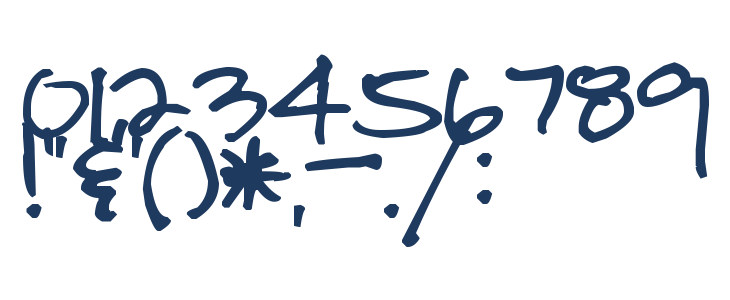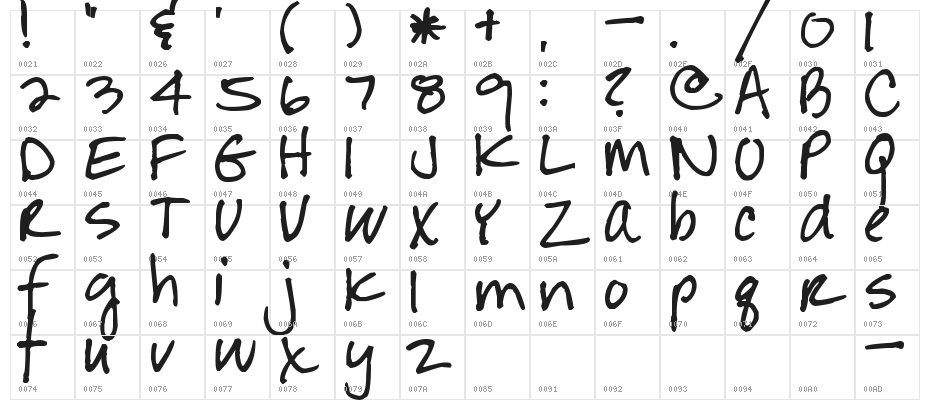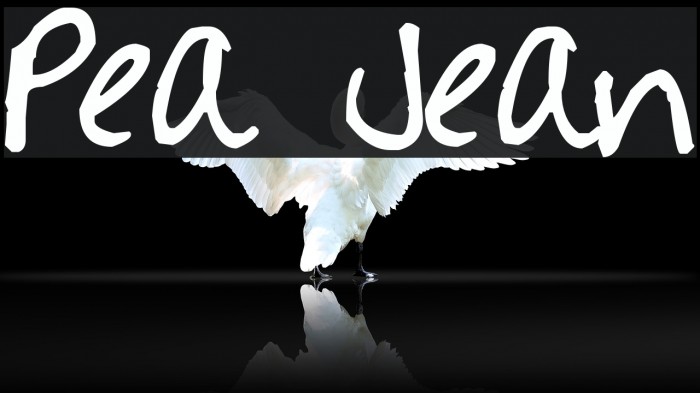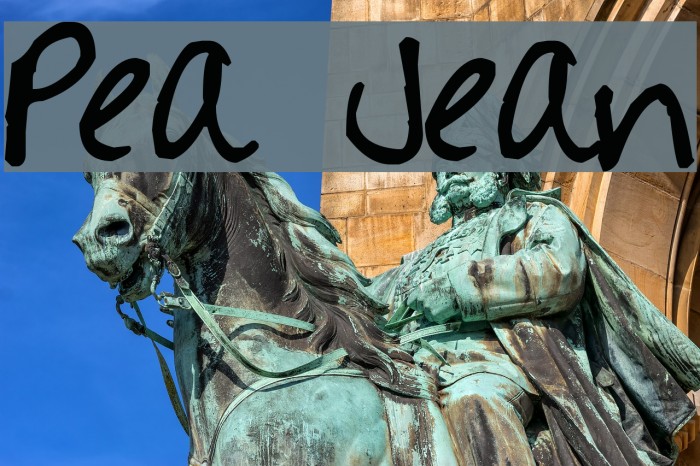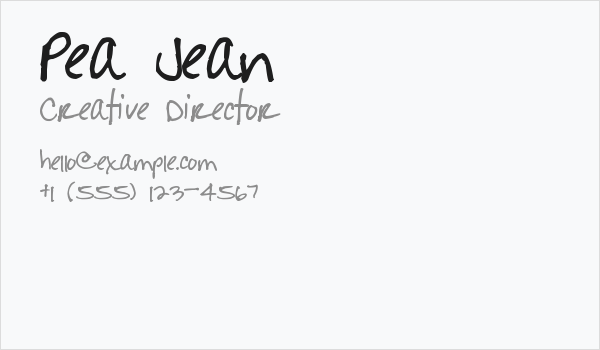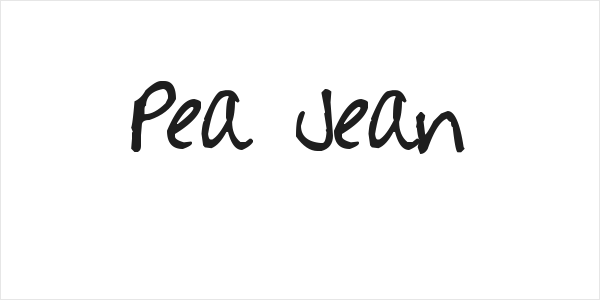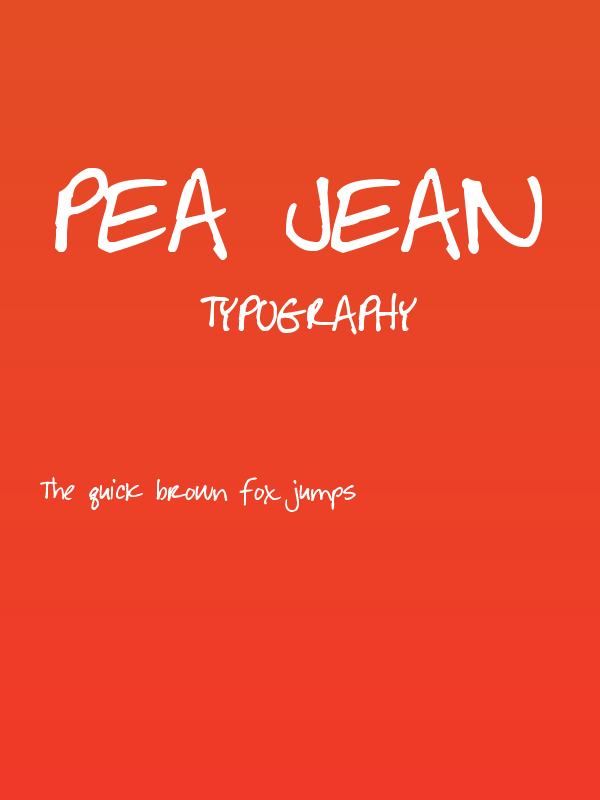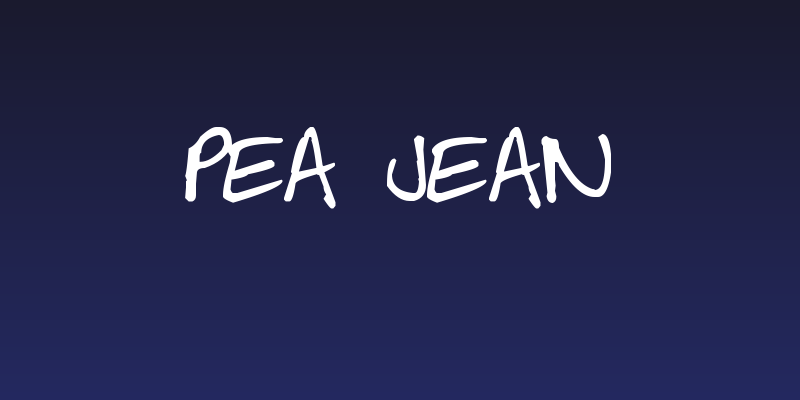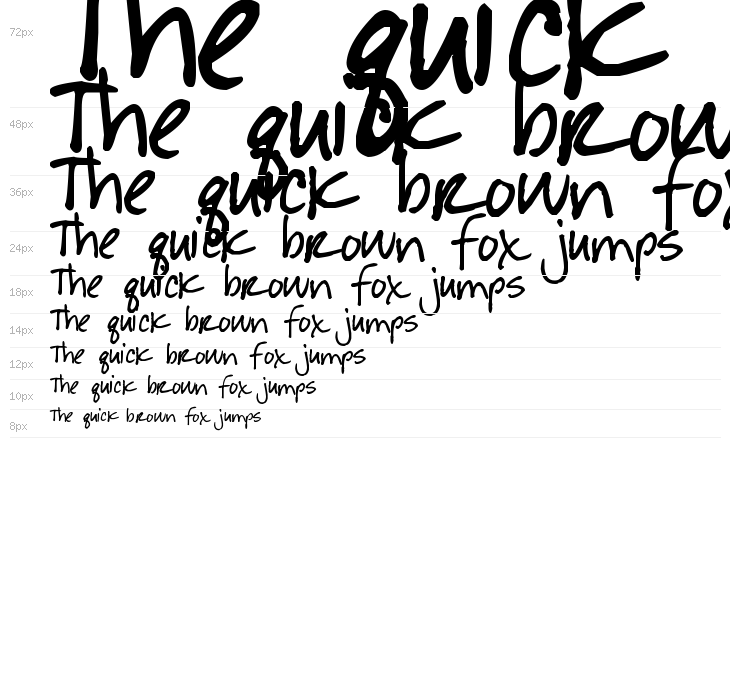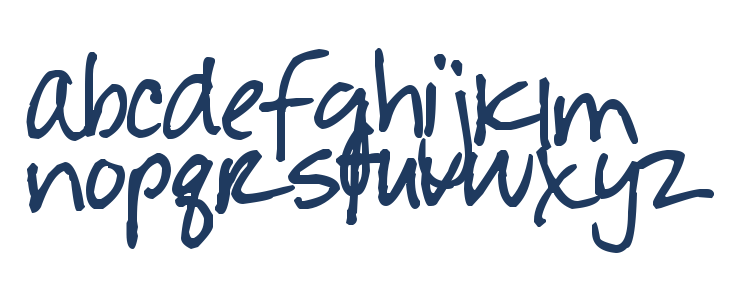
Pea Jean Font
Pea Jean Description
This font exudes a casual and playful handwritten style, characterized by its loose and flowing strokes. The letters are slightly slanted, giving it a dynamic and informal appearance. The uppercase and lowercase letters maintain a consistent style, with rounded edges and a natural, organic feel. The numbers and special characters follow the same aesthetic, ensuring a cohesive look across all text elements. This font's charm lies in its imperfect, human touch, making it ideal for projects that require a personal and approachable tone.
| Use Case | Logos, Headlines, Informal Texts |
| Proposed Projects | Ideal for personal notes, greeting cards, informal invitations, and creative projects that require a human touch. |